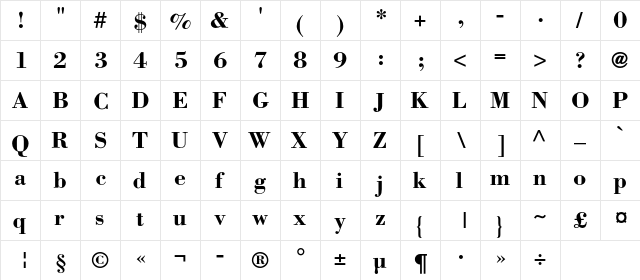
BorjomiC Bold
Design Context for BorjomiC Typeface
BorjomiC takes a measured approach to typography — its balanced proportions and neutral character make it a reliable workhorse for both digital and print work. The heavy weight commands attention and anchors typographic hierarchies.
Pro Tip: Pair BorjomiC with a font of contrasting weight or personality to build a more expressive typographic hierarchy.